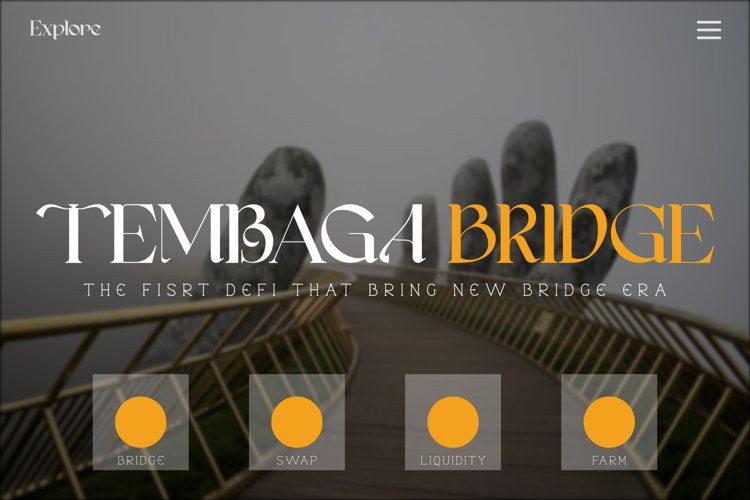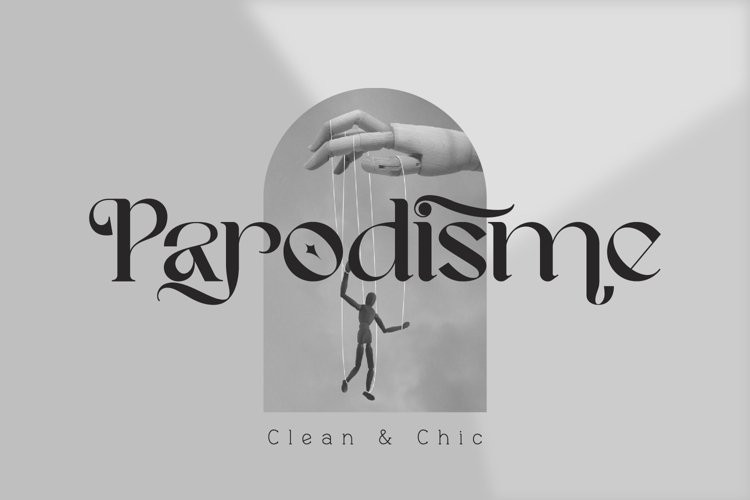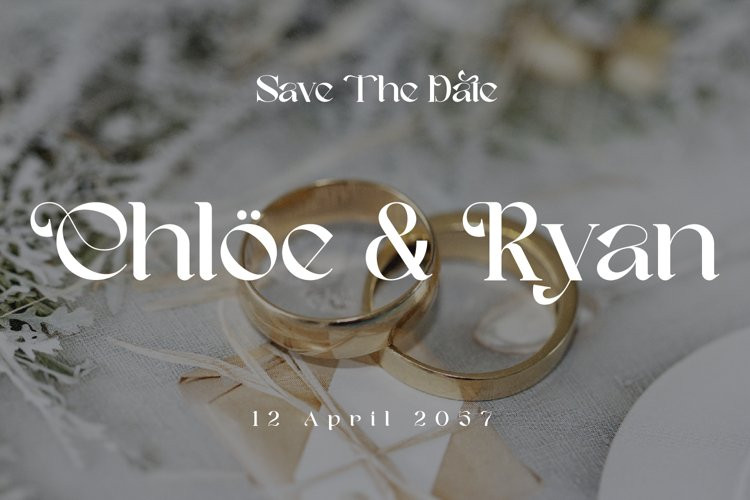
Parodisme Font
Parodisme FontParodisme is a high-contrast serif font family that has many alternatives and unique shapes.
Create a modern and beautiful logotype using this font family.
Supports all aspects of design, especially logo design and branding.
Suitable to be paired with various types of fonts.
Parodisme also supports multilingual languages.